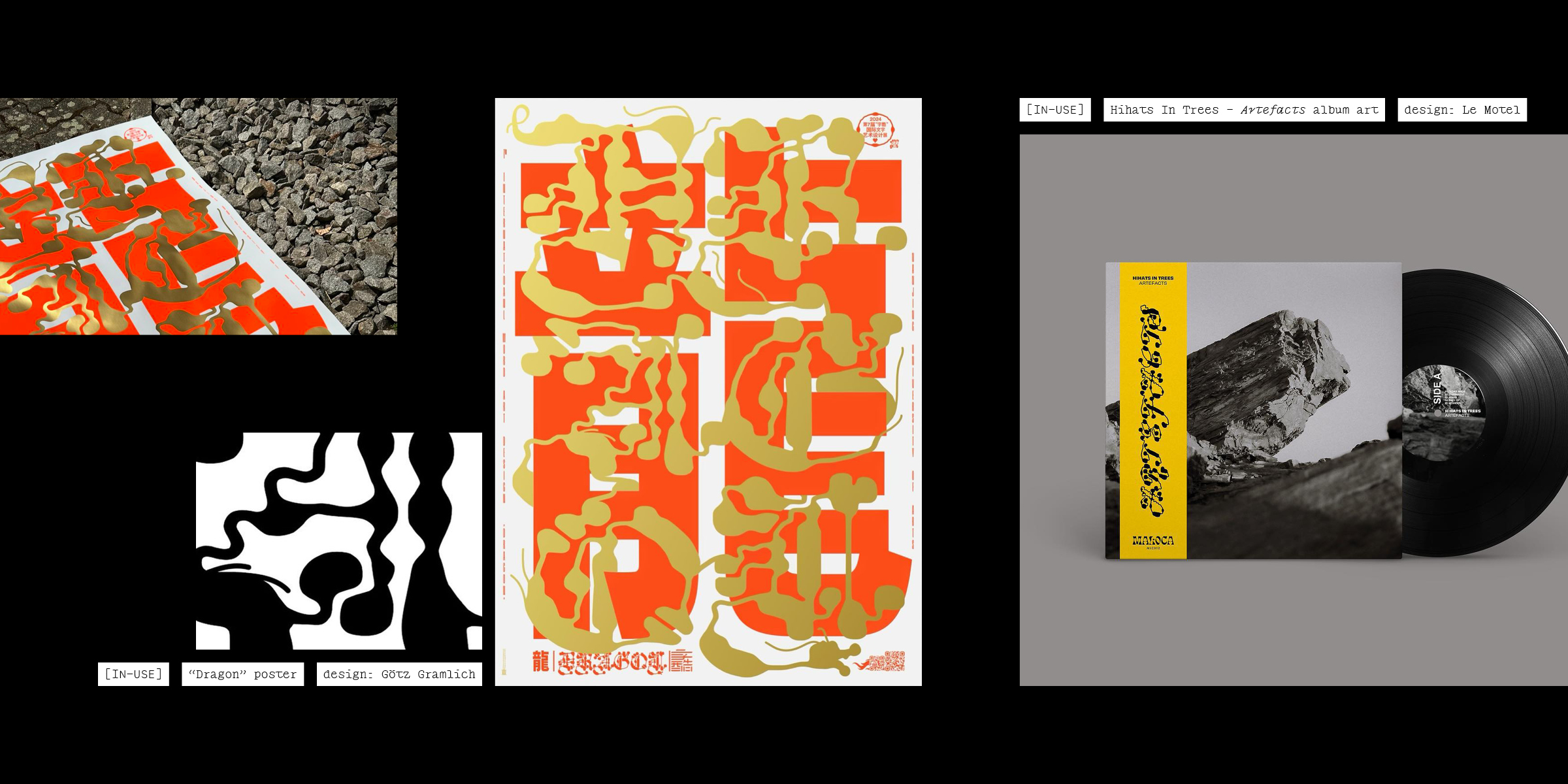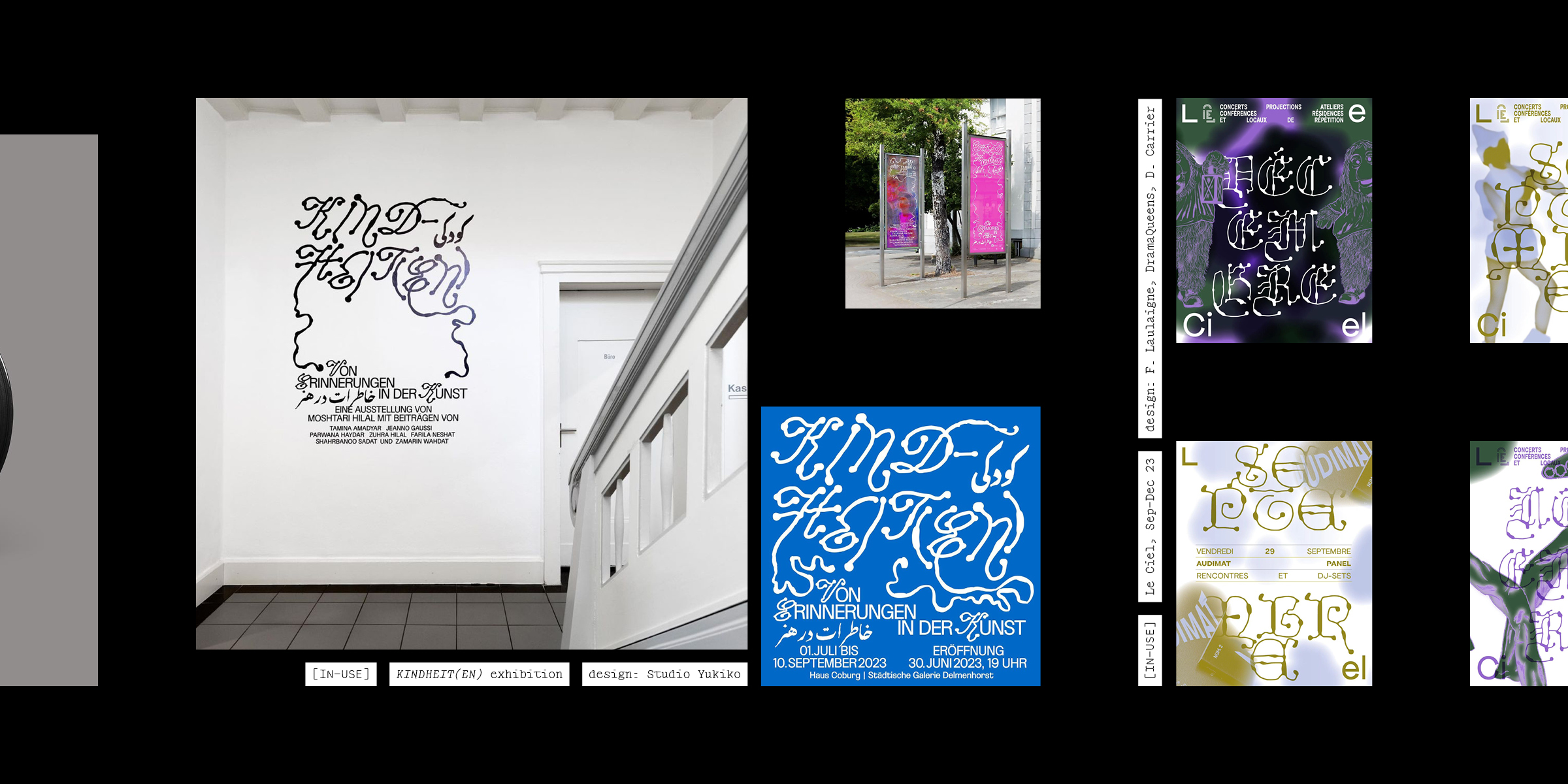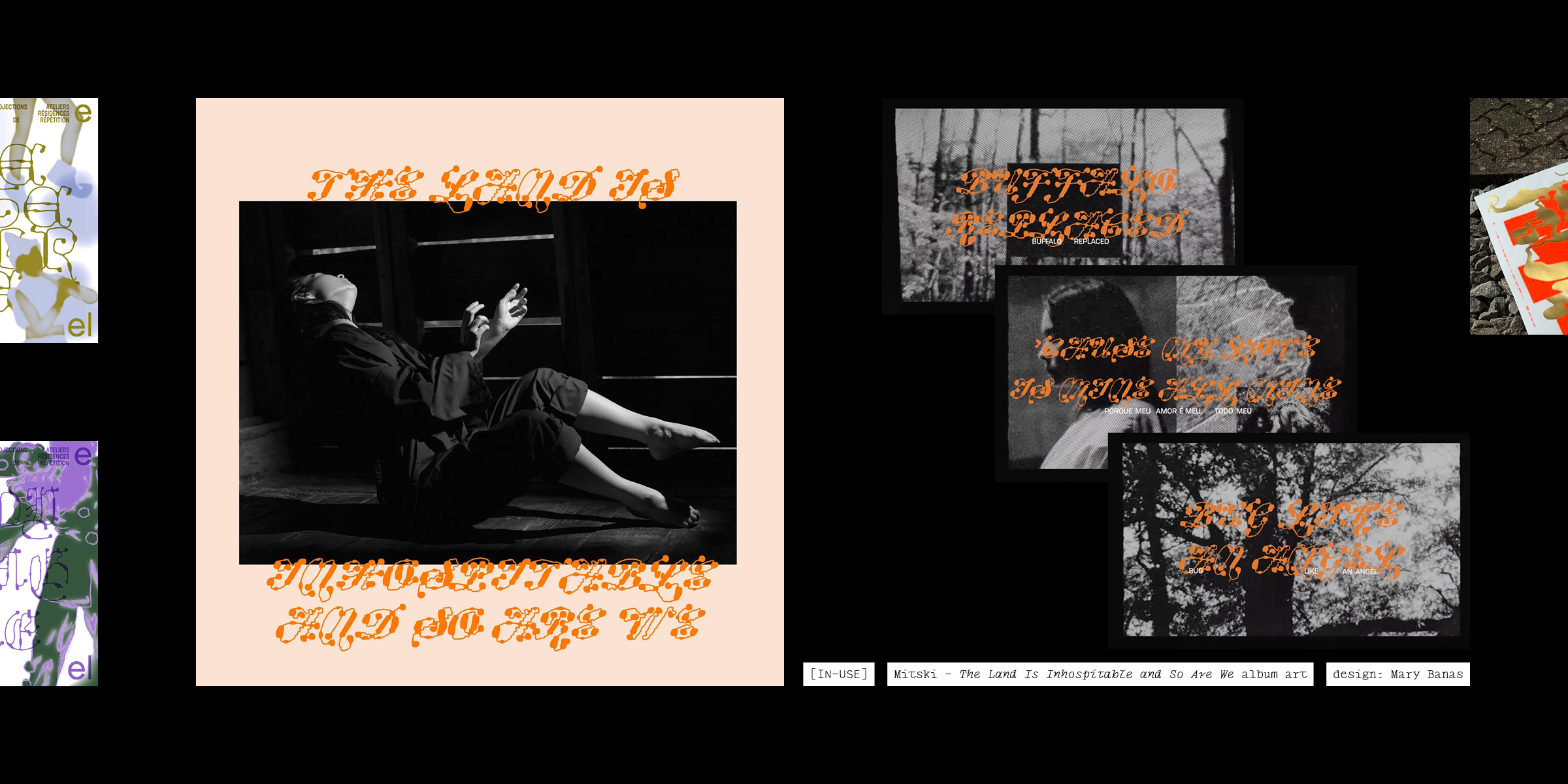
Foundry:
Plain Form
Released:
January 30, 2025
Styles:
9
Category:
other
Tone:
weird
Use size:
large, medium
Width:
normal
Weight:
light, regular, bold
Contrast:
medium
Other:
italic, rounded
About the typeface
Ready is not one for the passenger seat. This collection of display styles explores an asphyxiation of sense under an exuberance of the sign.
Marrying historical letterforms with the organic unpredictability of “reaction-diffusion” algorithms, Ready does more than flirting with abstraction: it tips over into becoming pure shapes, only sprinkled with a few hints of our long-established and codified writing system.
Design: Lucas Descroix & Benjamin Dumond